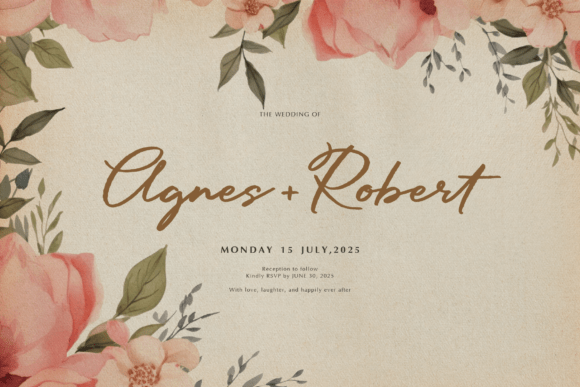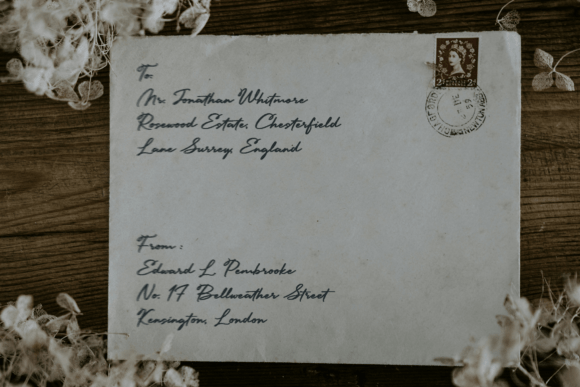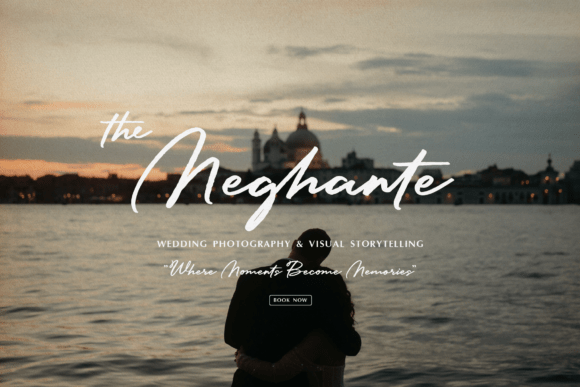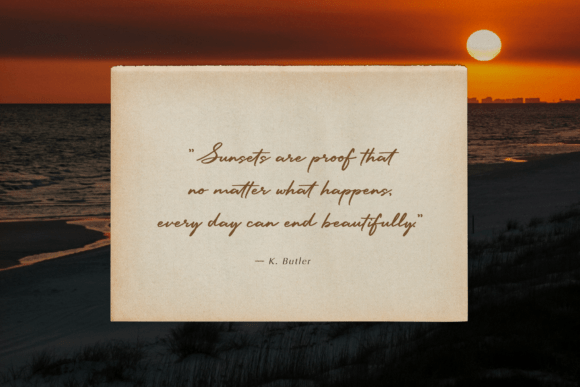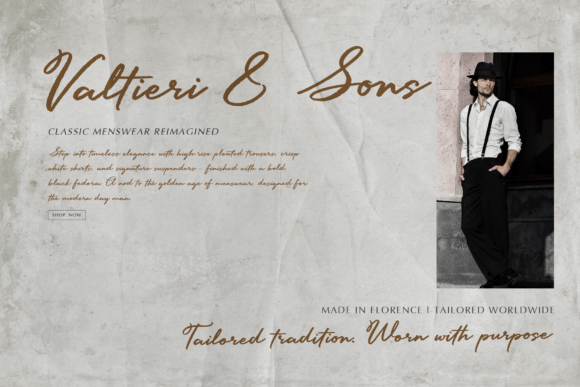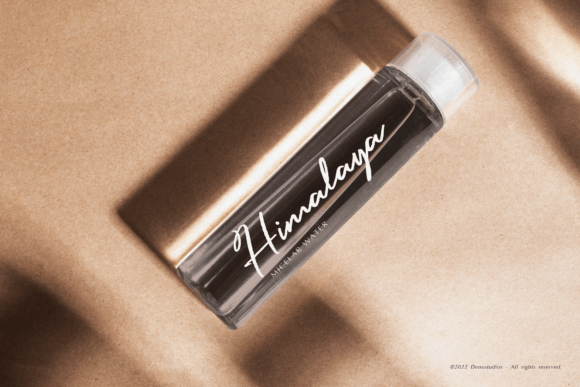
Introduction to Larickson Fracture Font
Larickson Fracture is a natural and expressive handwritten script font that exudes warmth and personal charm.
With over 280 glyphs, stylish alternates, and smooth ligatures, itโs perfect for wedding invitations, personal branding, logos, and heartfelt stationery .